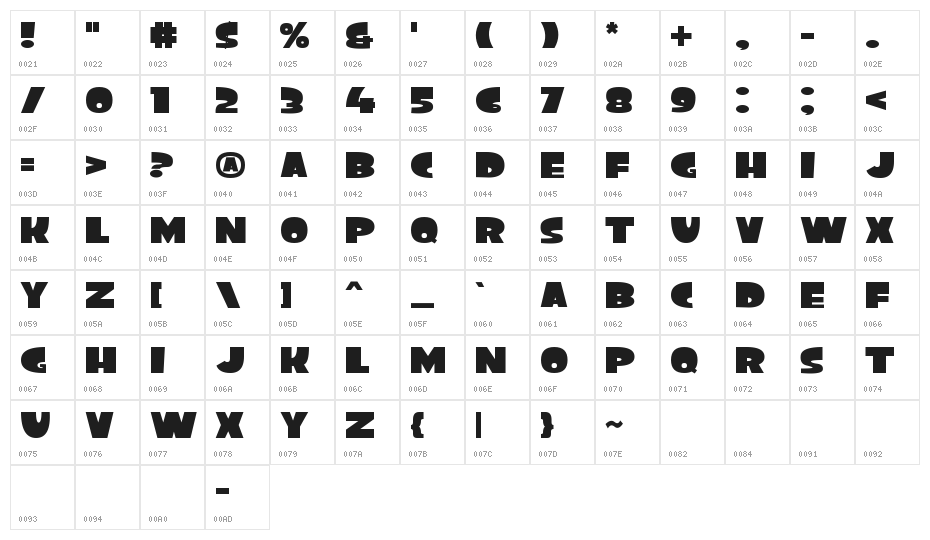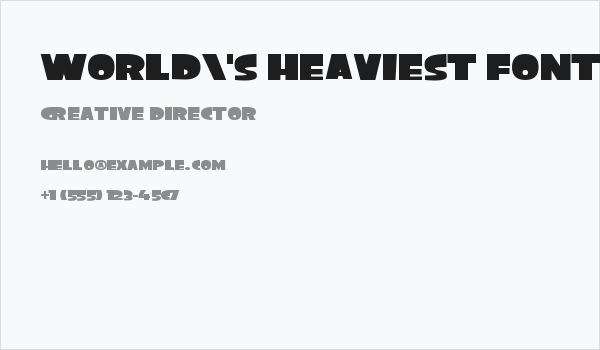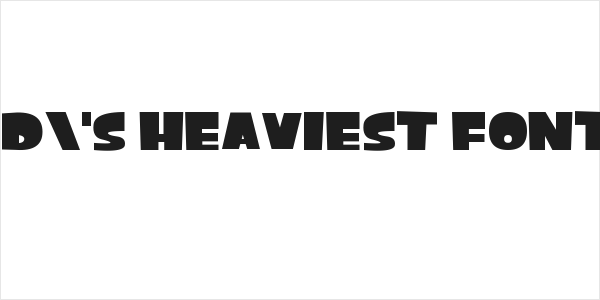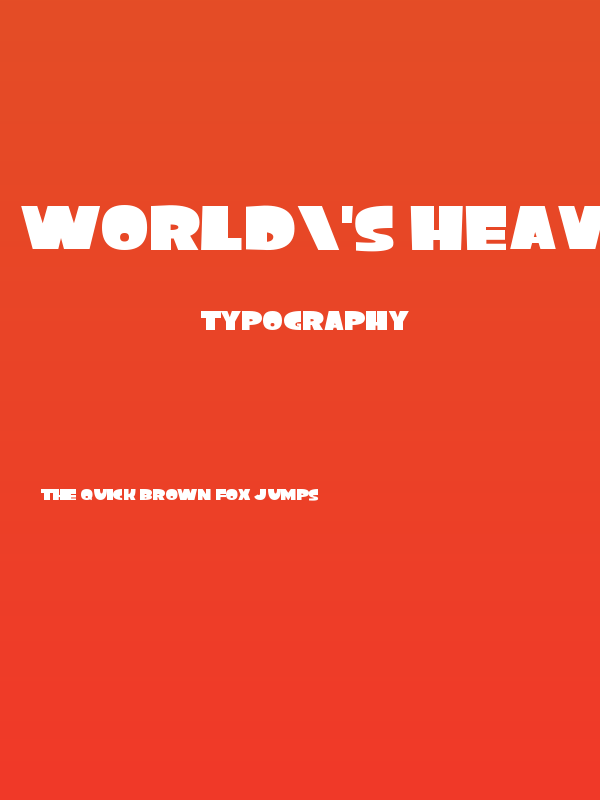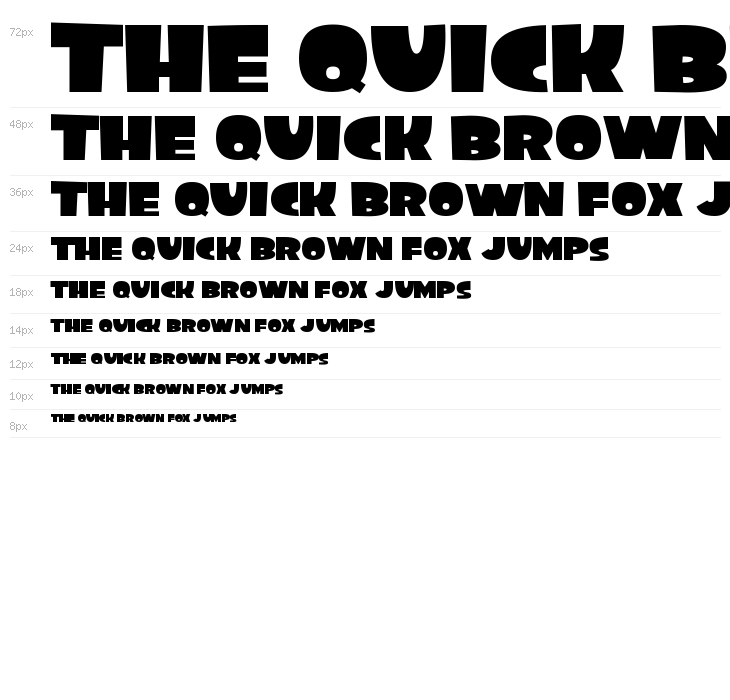
World's Heaviest Font Ever Font
World's Heaviest Font Ever Description
This font is characterized by its extremely bold and heavy appearance, making a strong visual impact. The letters are wide and blocky, with a uniform thickness throughout, giving it a robust and powerful look. The style is consistent across uppercase, lowercase, numbers, and special characters, maintaining a cohesive and striking presence. The font's weight and width make it ideal for grabbing attention and conveying strength or emphasis in design projects.
| Proposed Projects | Ideal for posters, headlines, branding, and any design needing a bold statement. |